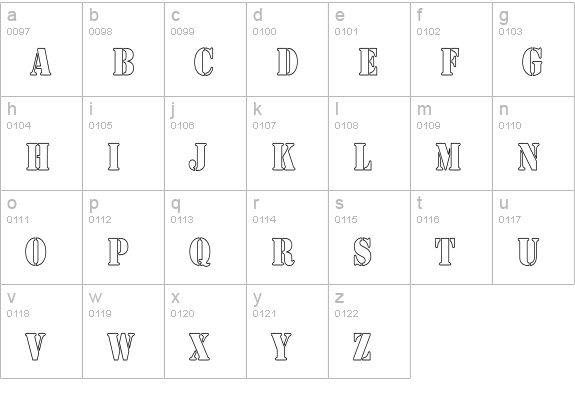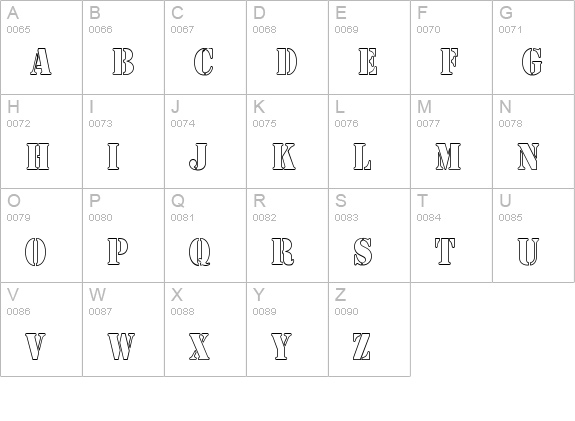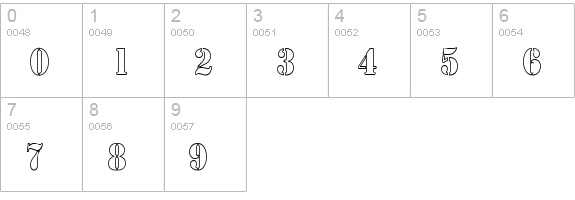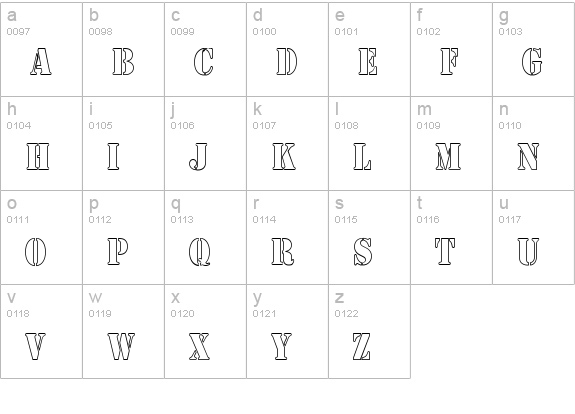
Army Hollow Thin is a delicate, low-contrast variant in the Army typeface family \xE2\x80\x94 well suited to fashion editorial, minimal branding, and high-contrast display.
Army Hollow Thin font is a sleek and modern typeface that exudes elegance and sophistication. With its delicate lines and sharp angles, this font is perfect for adding a touch of refinement to any design project. Whether you're creating a logo, poster, or website, Army Hollow Thin font will elevate your work to the next level. The best part? Army Hollow Thin font is absolutely free to download at FontsMarket.com. Now you can access this stunning typeface without breaking the bank. Don't miss out on the opportunity to enhance your designs with the beauty and charm of Army Hollow Thin font. Download it today and see the difference it can make in your projects.